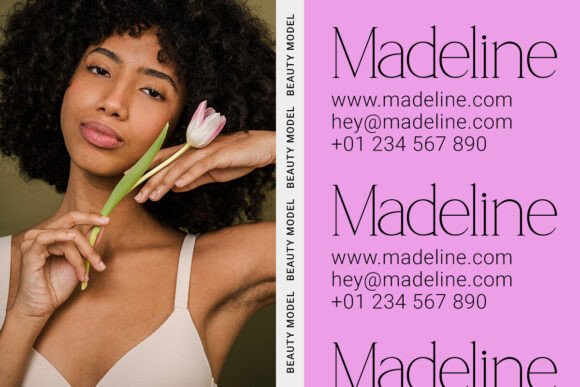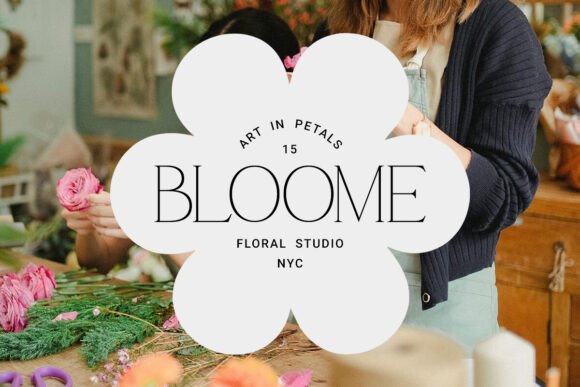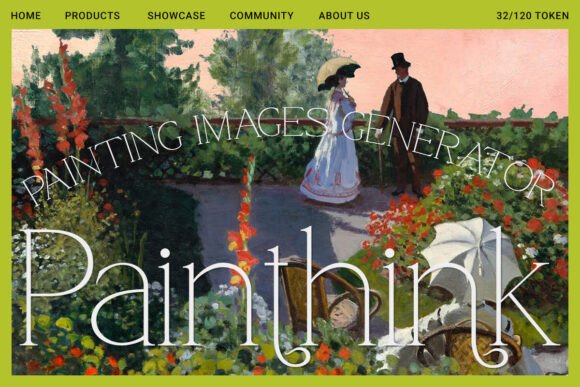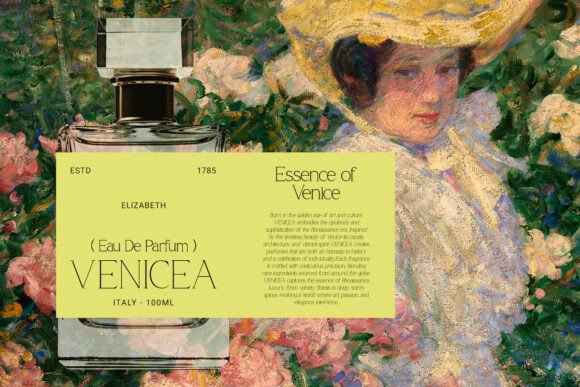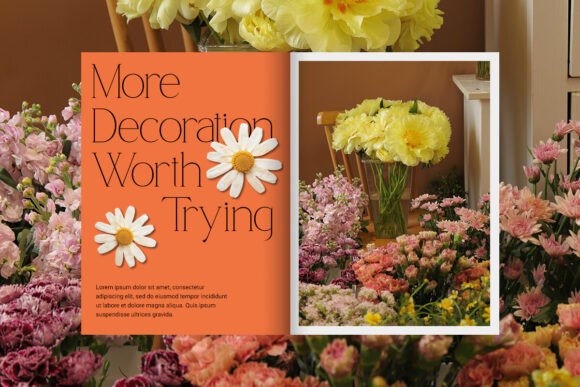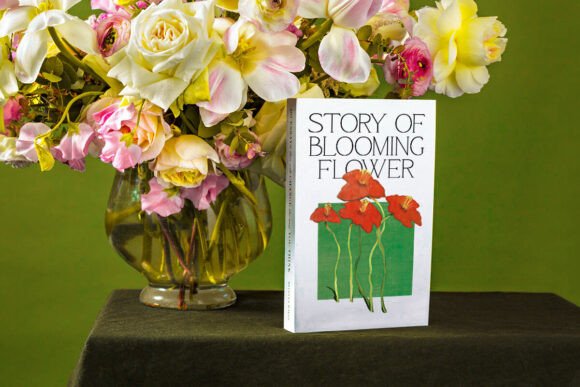
Introduction to Qamora Font
Qamora is an elegant serif font carefully crafted by Sohel Studio.
Combining modern aesthetics with classic charm, Qamora exudes sophistication and luxury in every detail This font is perfect for a variety of design needs, including branding, wedding invitations, editorials, logos, and luxury product packaging.
Qamora Font offers exceptional quality and versatility, making it a valuable addition to your design toolkit. Whether you’re creating for personal projects or commercial use, Qamora Font delivers professional results.